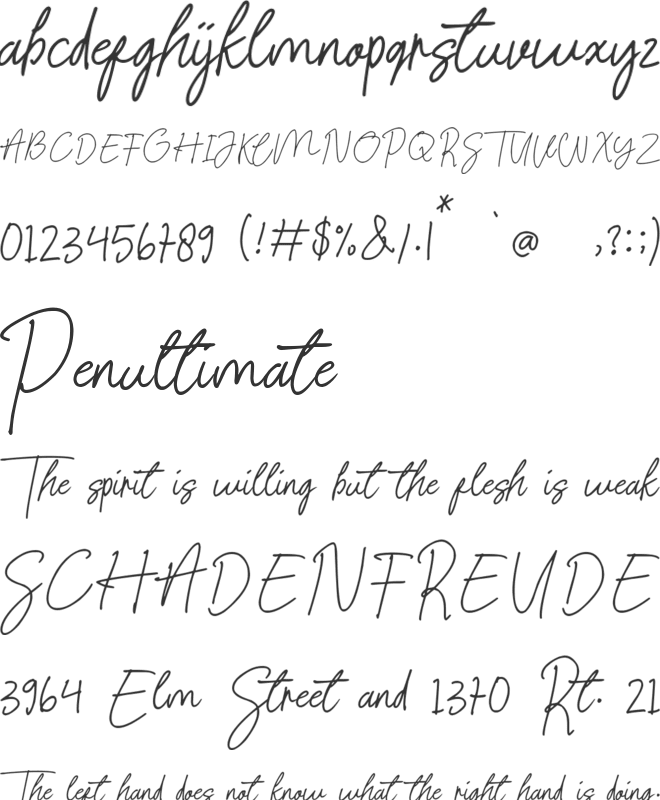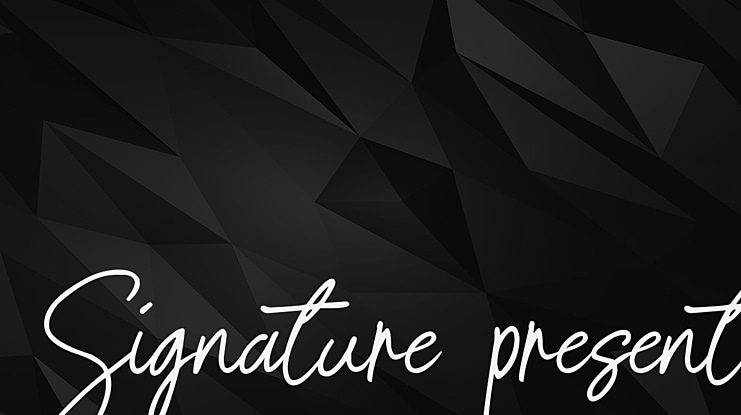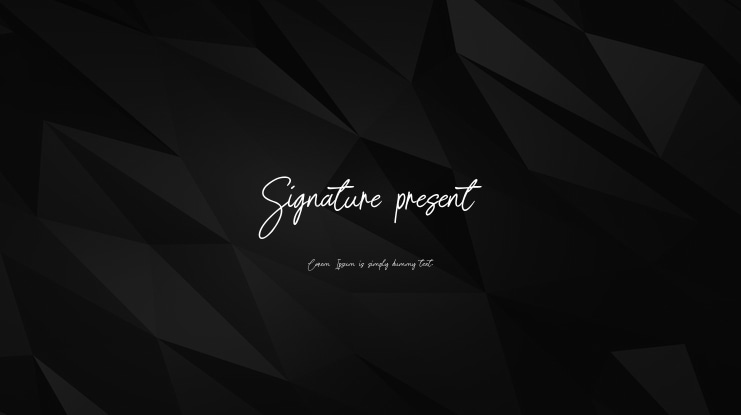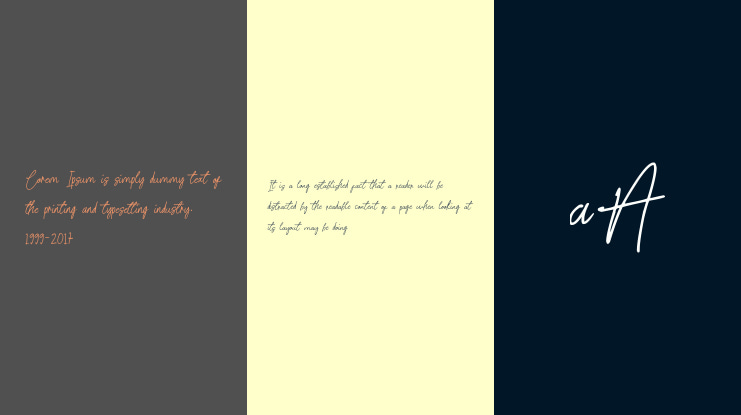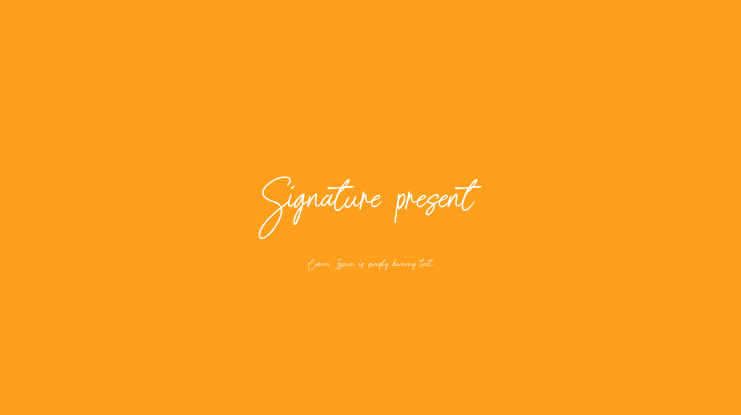
Signature present Font
The signature present font is an original handwritten font with a simple and elegant style yet very high class. This font is suitable for your creative projects such as logos, branding, wedding invitations, signatures, business cards, packaging, etc. signature present is here to make your design stand out from the crowd